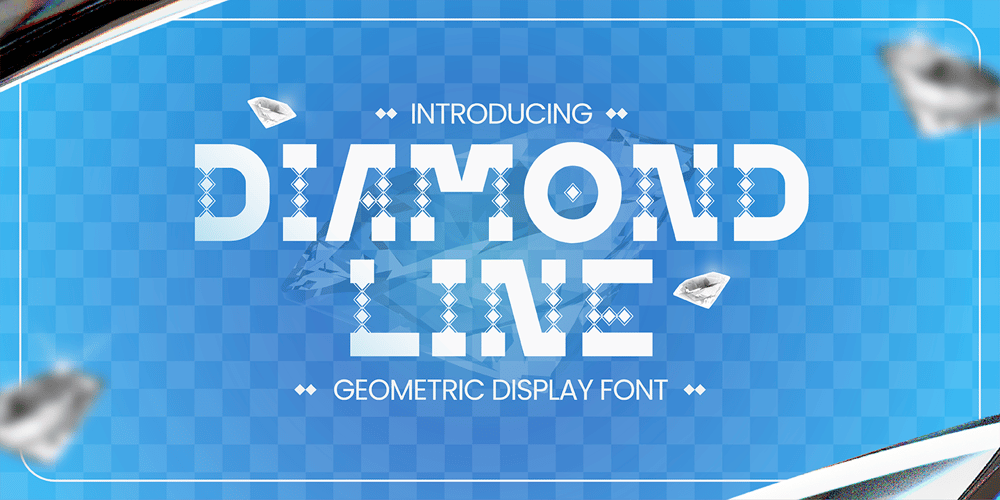
Diamond Line Font Family was designed by Fadli Ramadhan Iskandar and published by Attype Studio. Diamond Line contains 1 styles and family package options. Diamond Line is a bold and striking geometric display font with a unique Y2K-inspired style. Its sharp edges and diamond-patterned details add a futuristic yet nostalgic vibe, perfect for designs that need a standout visual statement. Ideal for posters, headlines, and modern branding, Diamond Line combines retro charm with modern versatility. Let your creativity shine like a diamond with multilingual support to make your projects dazzle worldwide!Features :- Diamond Line Family Font- Multilingual, US Roman, Latin 1 Support —Hope you enjoy with our font!Attype Studio